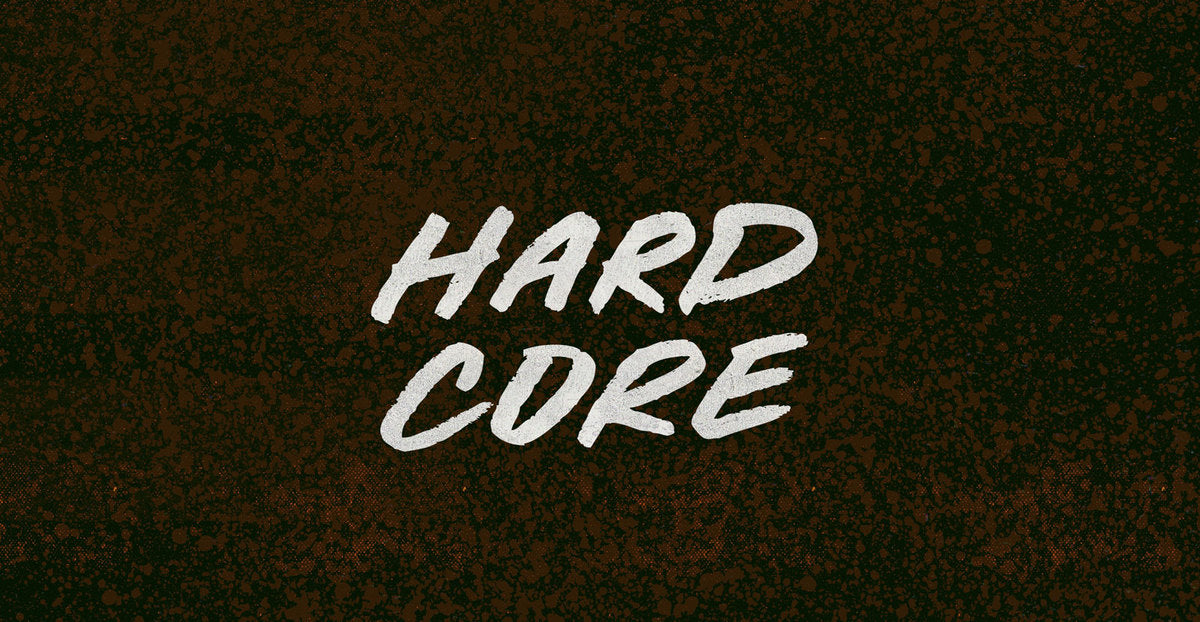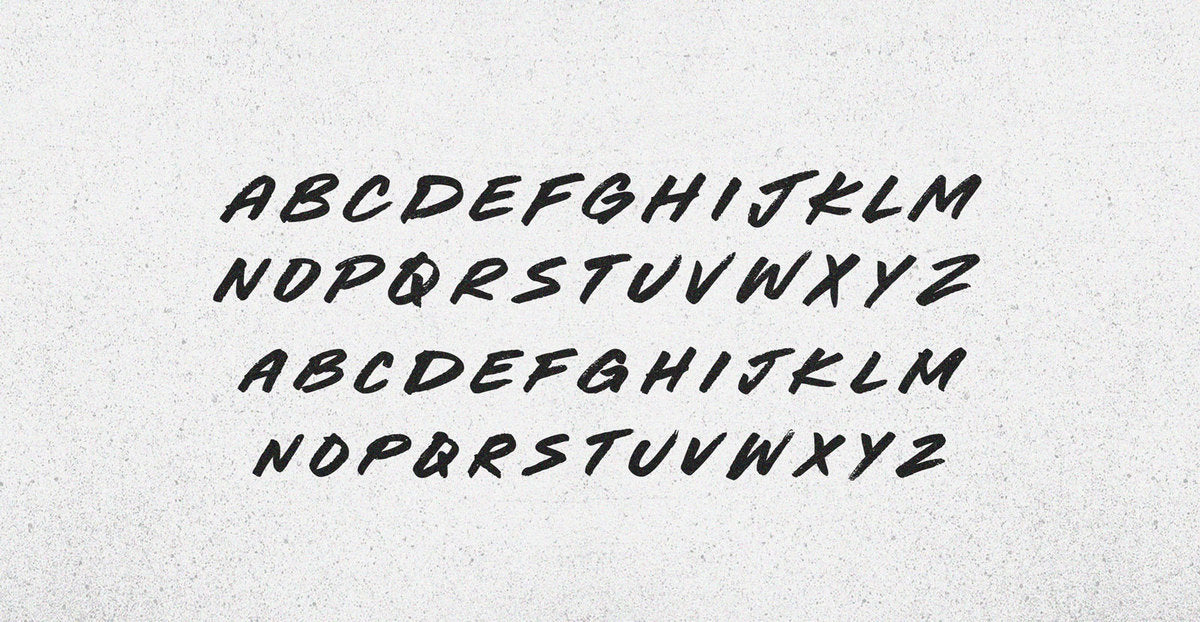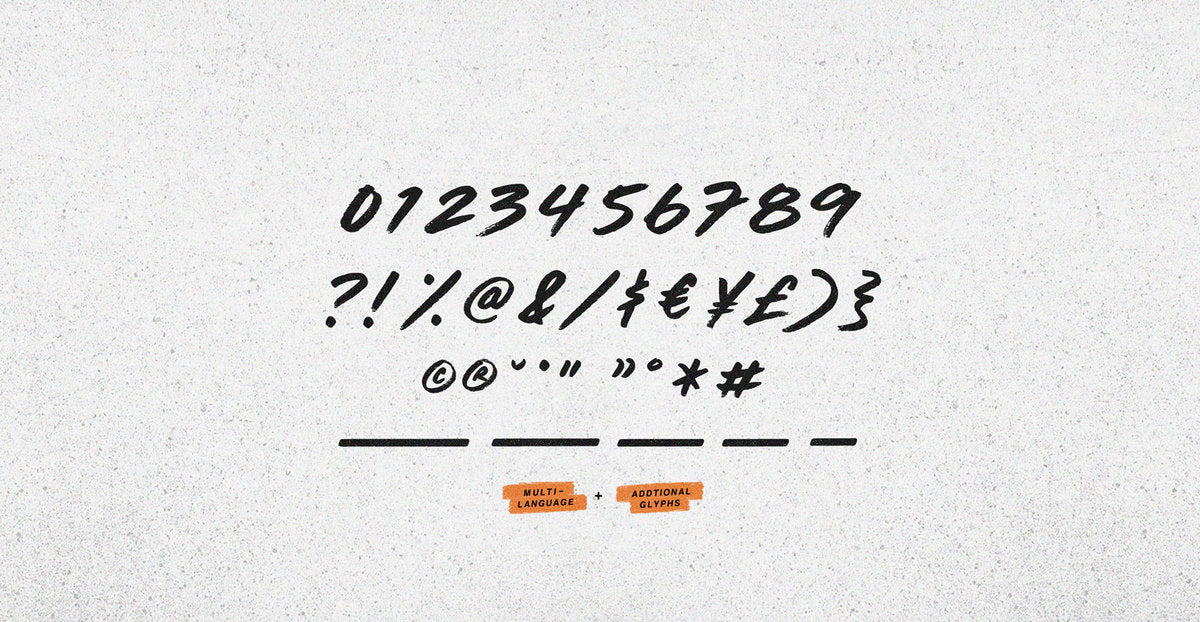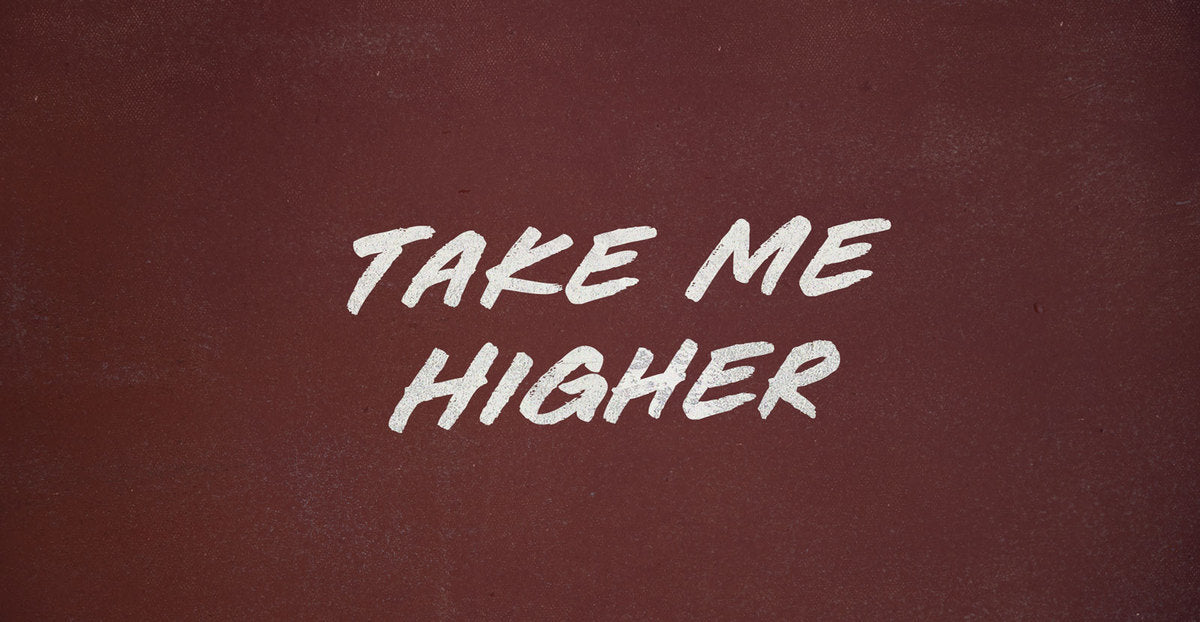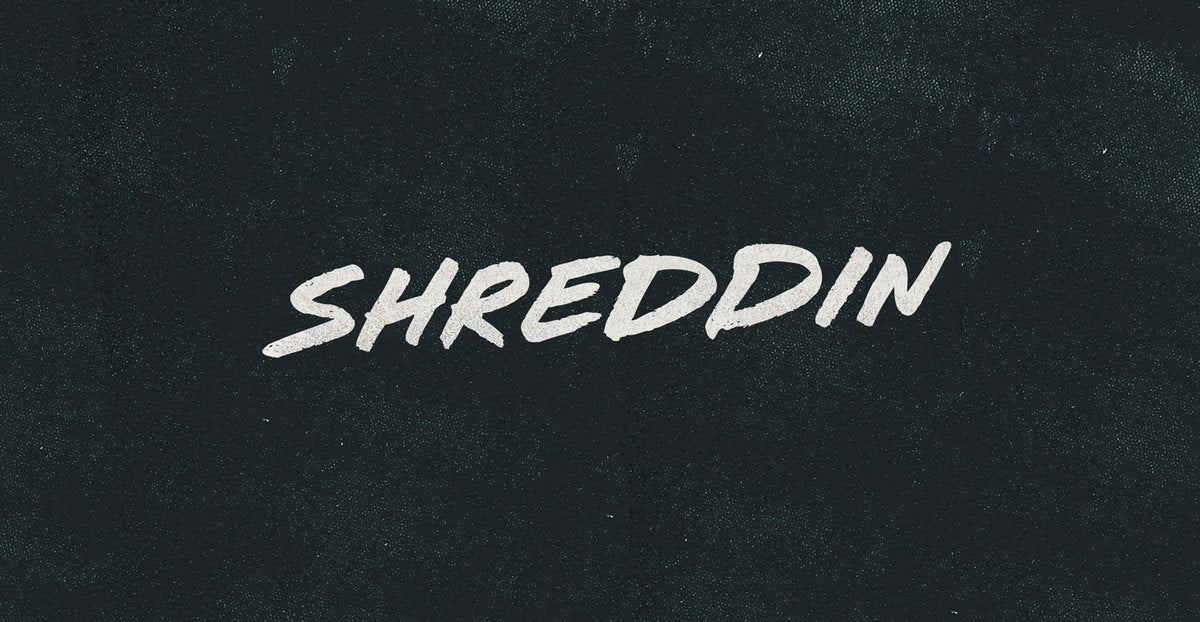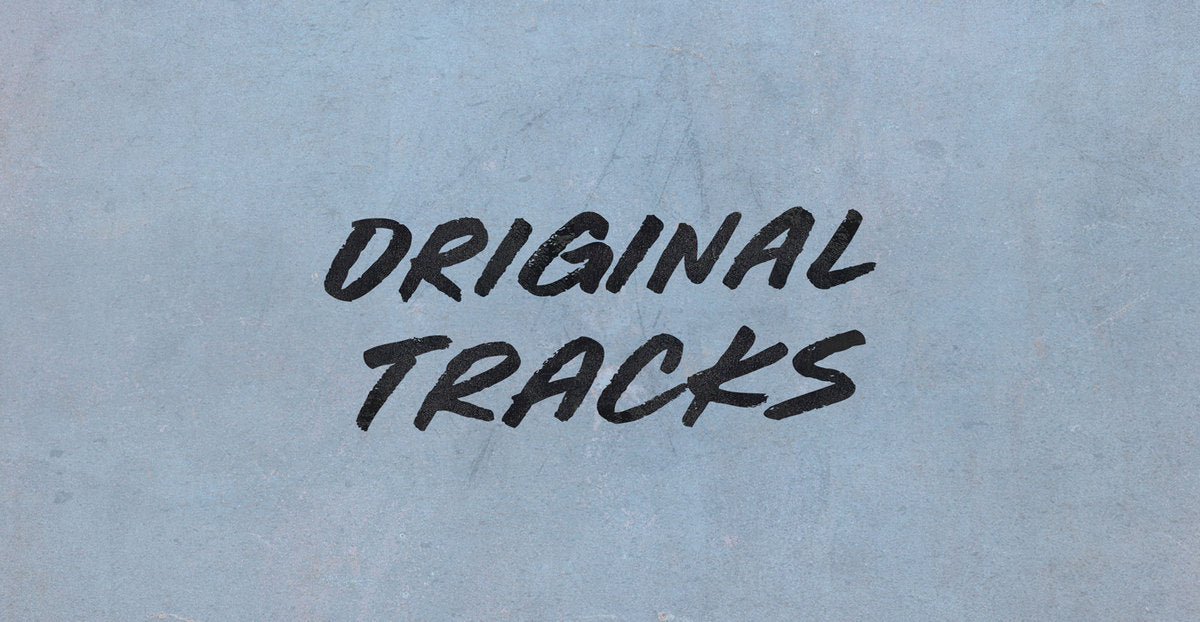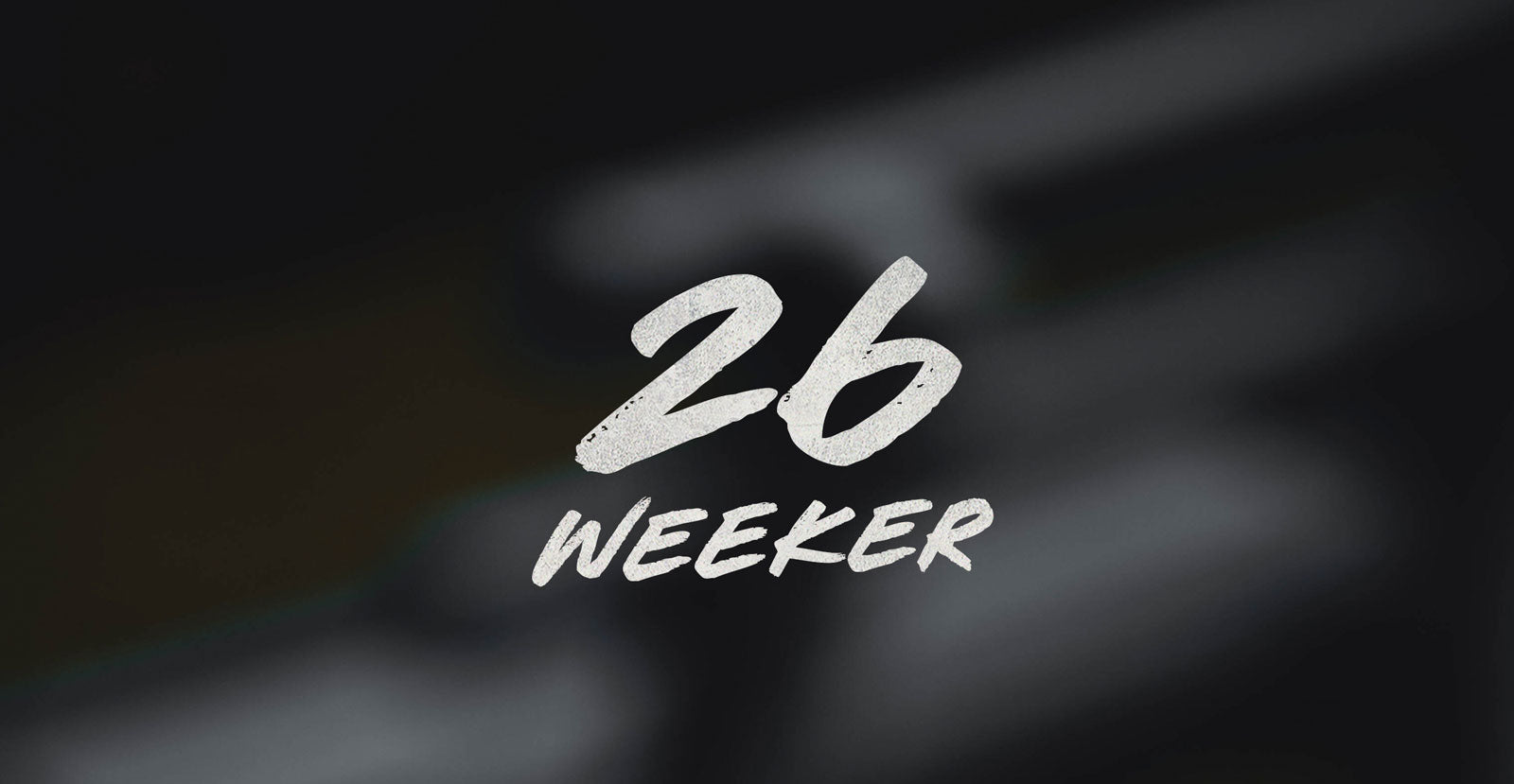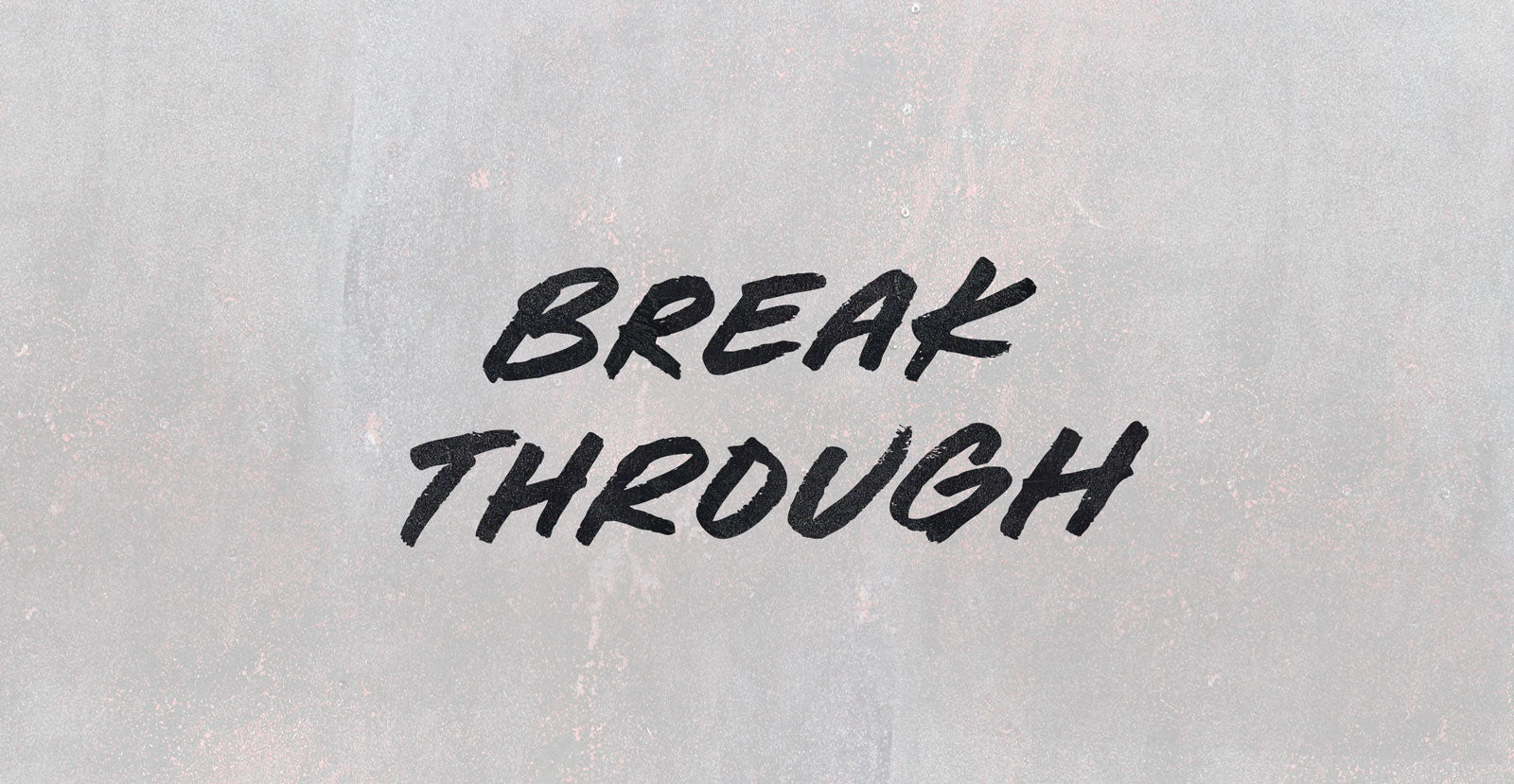
Hard Core
Turn excuses on a lathe until reality grinds away the blade. It’s the cyanide pit at the centre of the sweetest peach. It’s the will to kill in the heart of every civilian. It’s Hard Core. Take a bite, but you might just break your teeth.
• Underlines